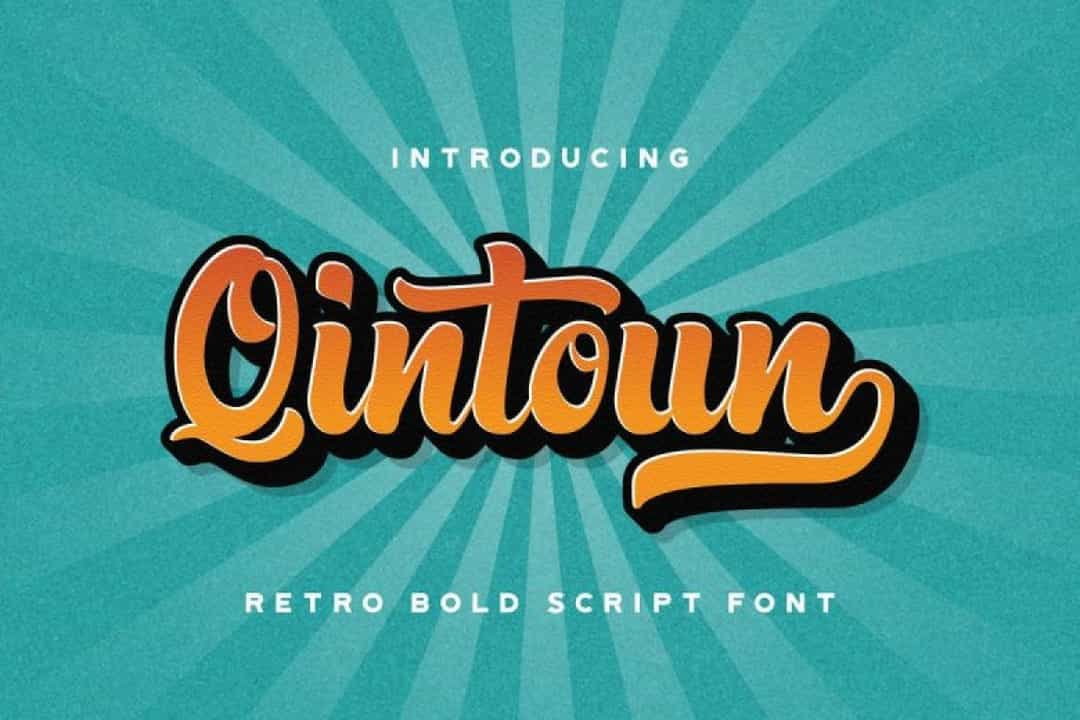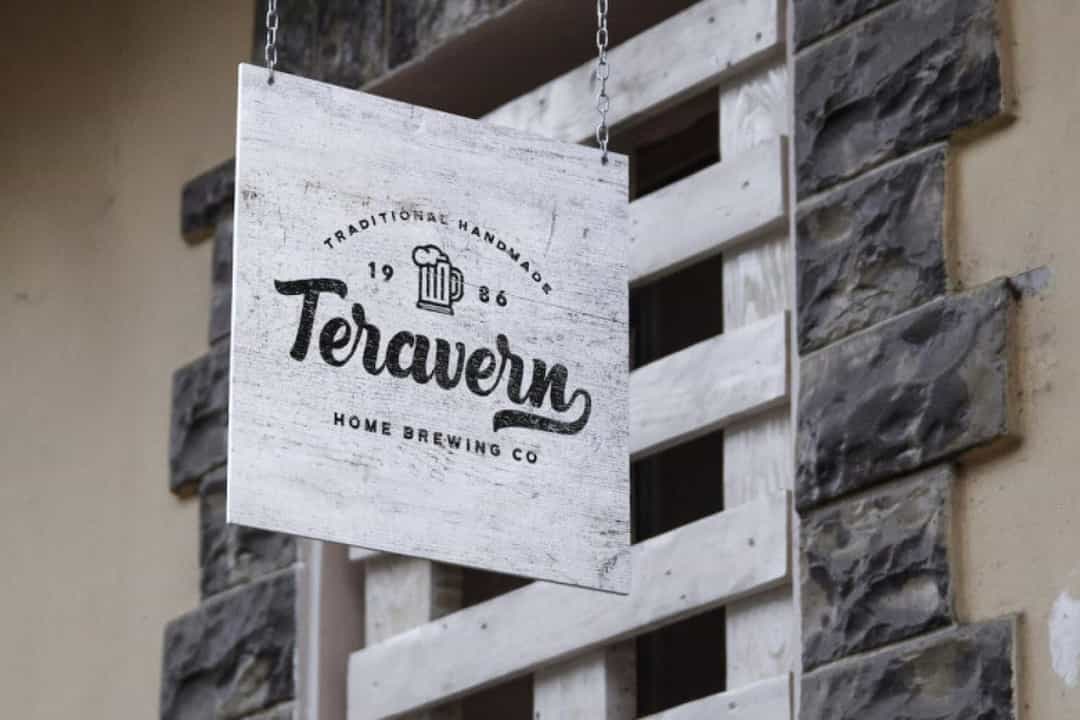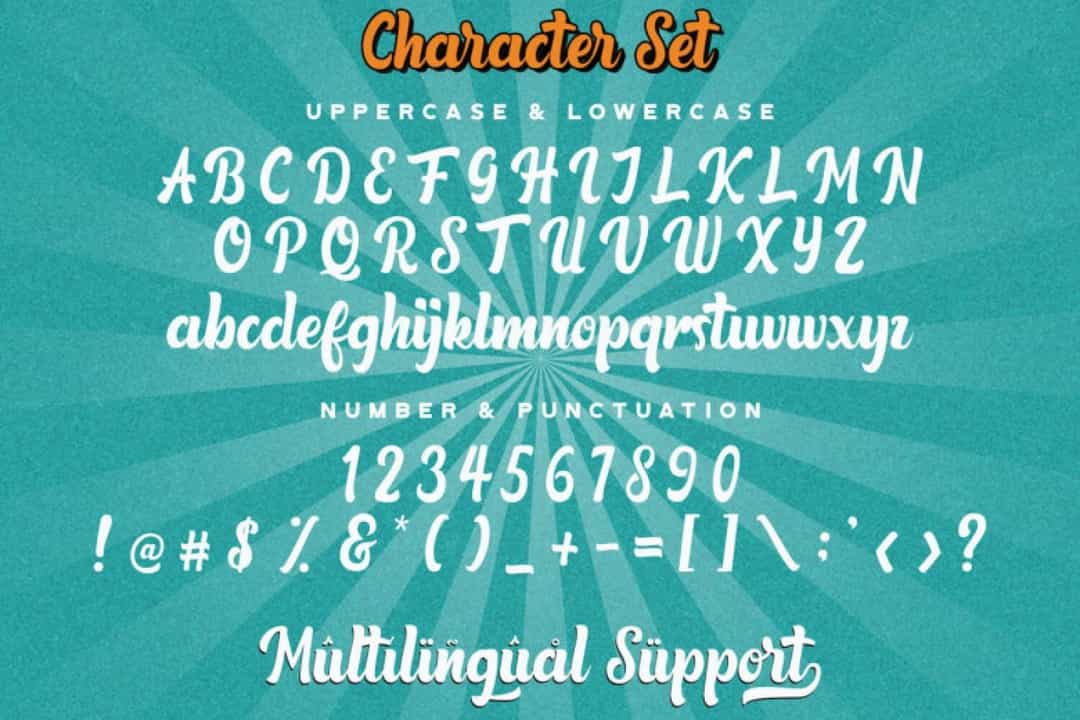
Qintoun is an elegant vintage bold script font which has been elaborately designed to suit your needs. This comes in a curvilinear and round shape which would make it suitable for branding purposes especially where there is a need to put on garments or product packaging where quick typographical display could be necessary.